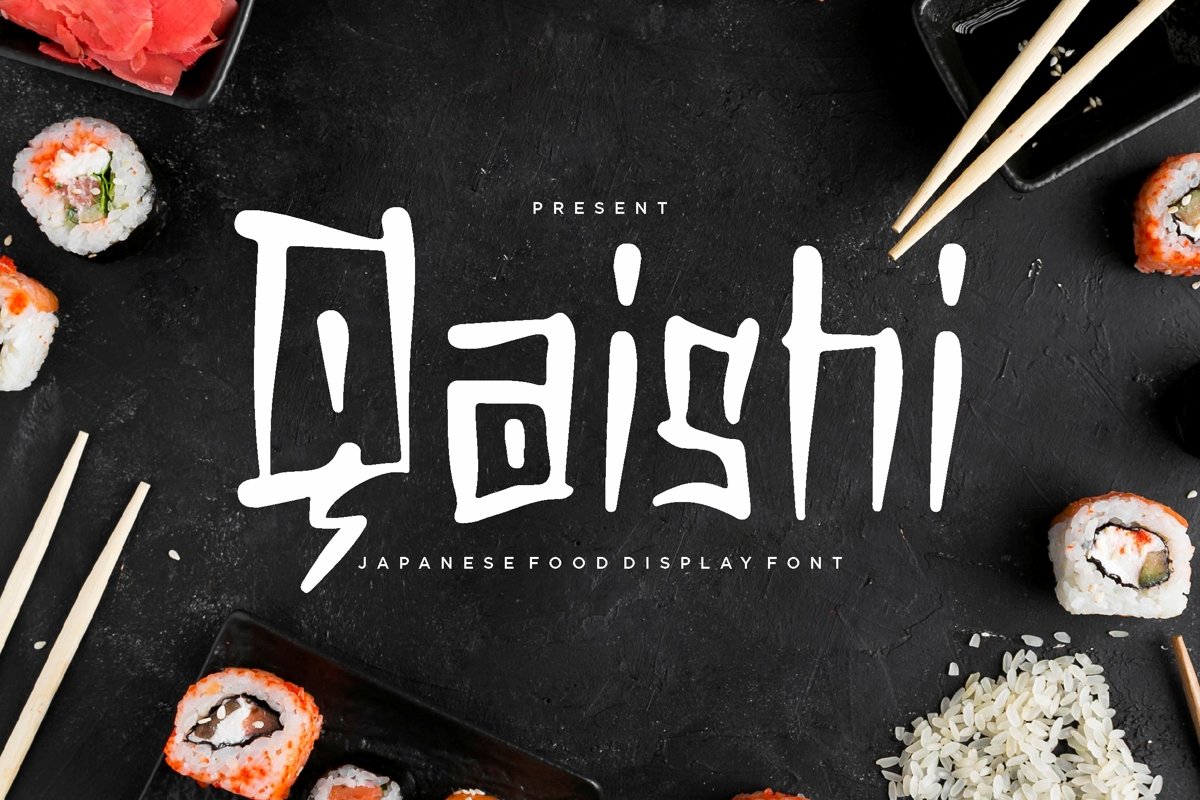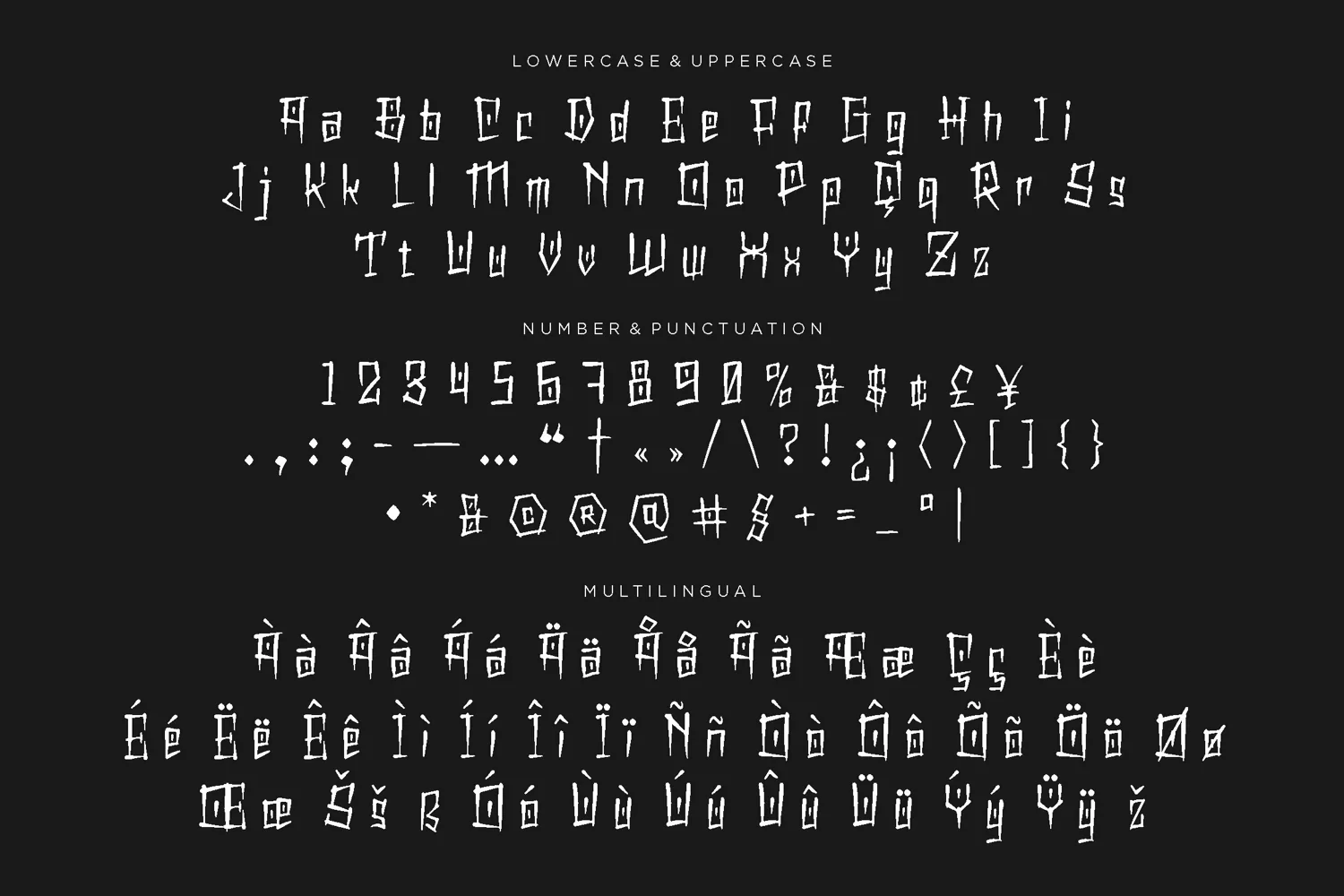
Qaishi is Japanese display come with food themes. We wanted to create the most unique character. It matches applies in some designs such as the logotype, brand, packaging, quotes, poster, t-shirt, cover book, birthday invitation and more custom design. The features uppercase, lowercase, numeral, punctuation & symbol, multilingual support.